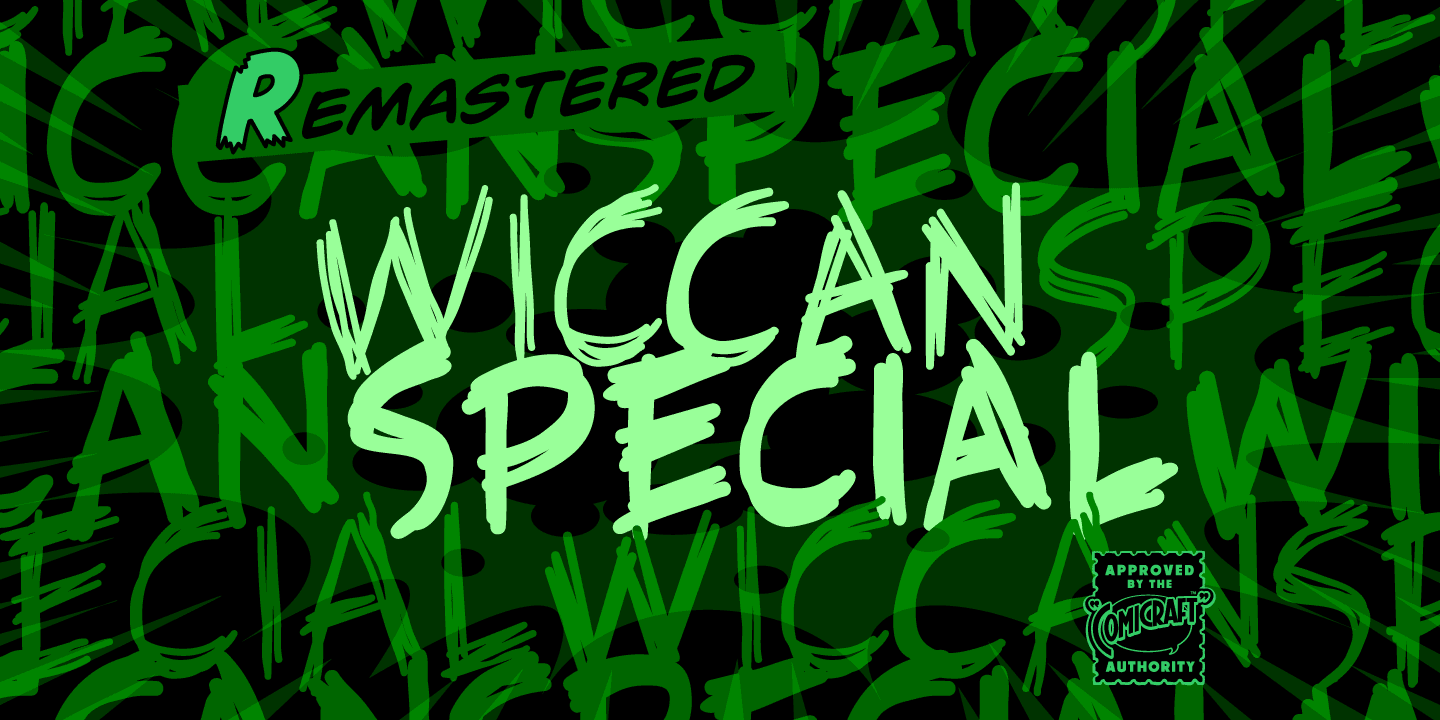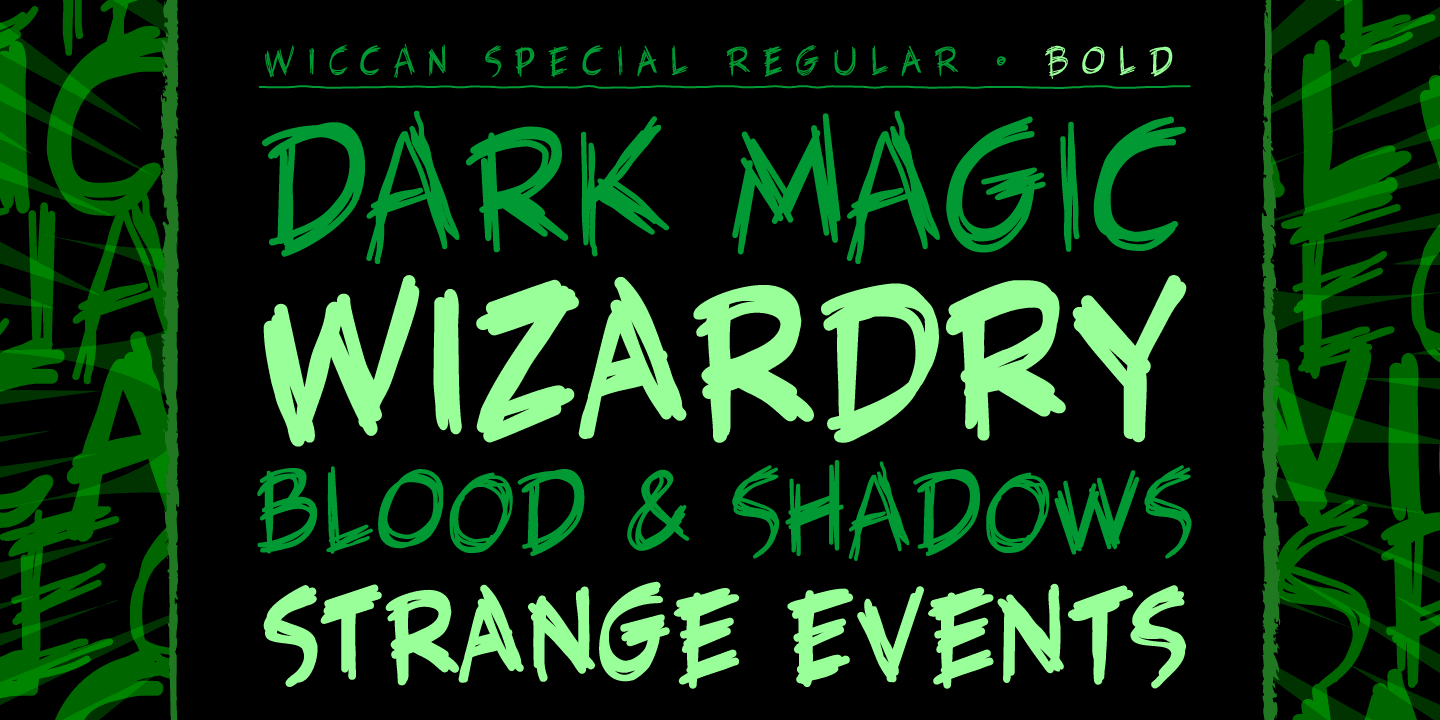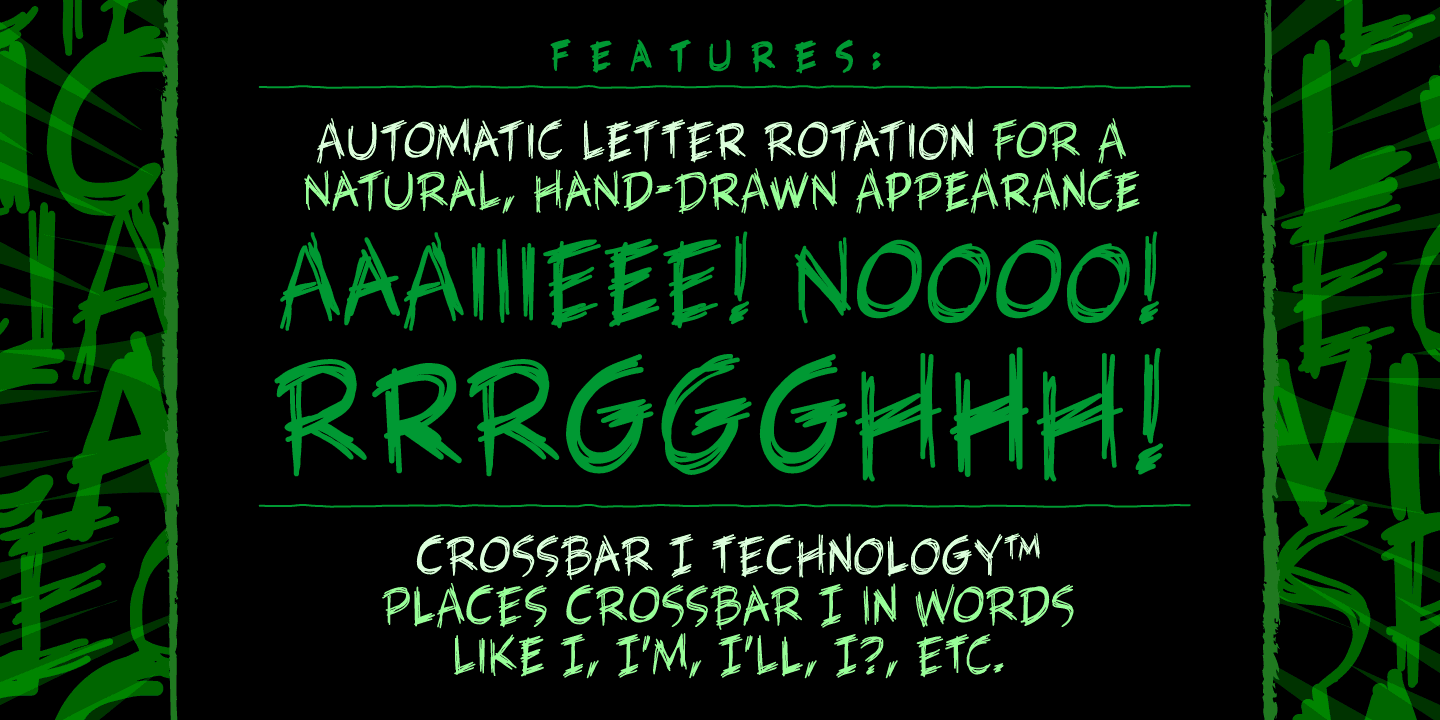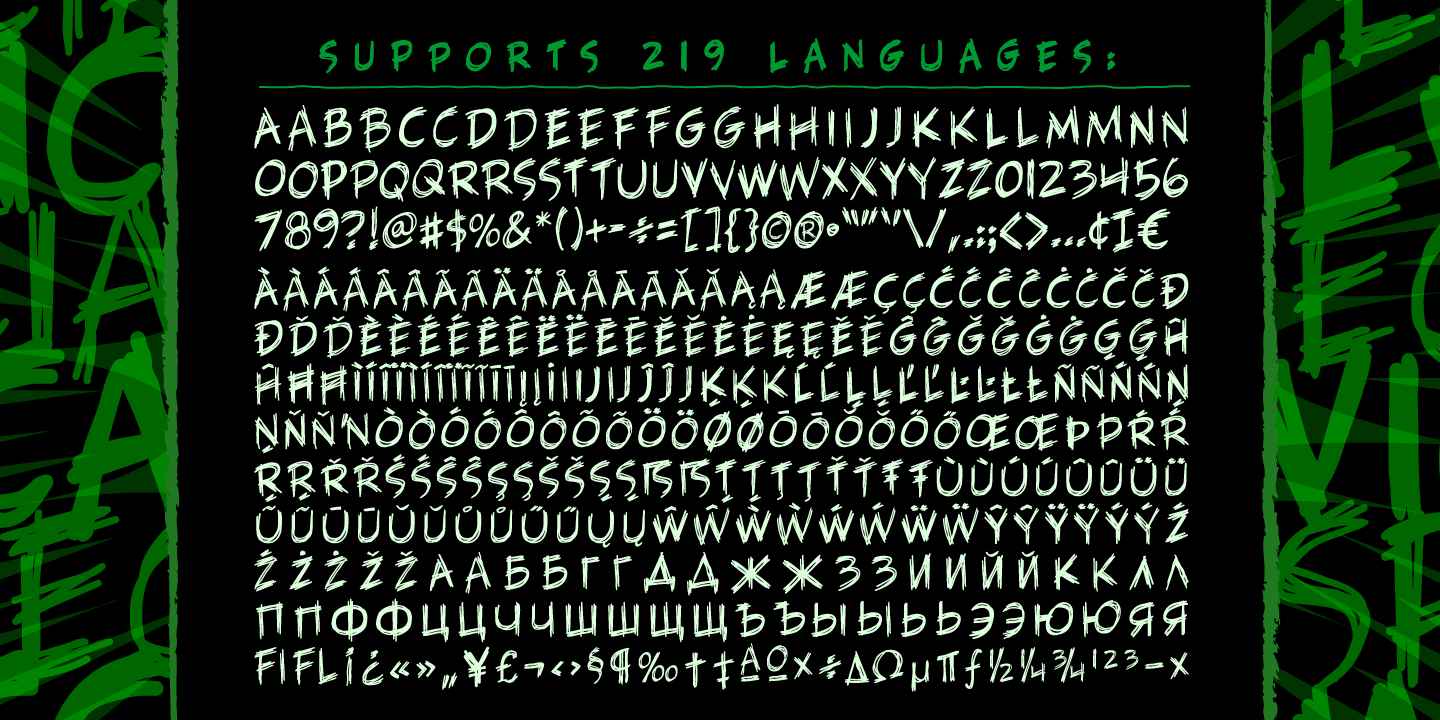
Wiccan Special
Font Family by Comicraft Fonts
Wiccan Special is a lively brush script with a hand-drawn, slightly irregular look that feels bold, casual, and full of motion. Thick strokes and rough edges give it an expressive, playful voice that stands out right away, making it a strong choice when you want lettering with energy instead of polish.
This family includes 2 styles—Regular and Bold—so it offers a little flexibility while keeping the same fun, comic-inflected personality. It suits display work especially well, from posters and social graphics to packaging, themed branding, and other attention-grabbing headlines where a loose, artistic script can do the talking.
From Comicraft Fonts, this is a good fit for projects that lean informal, dynamic, and a little wacky. If you need a brush-style script that feels spirited and expressive rather than refined, this family brings that character across quickly.